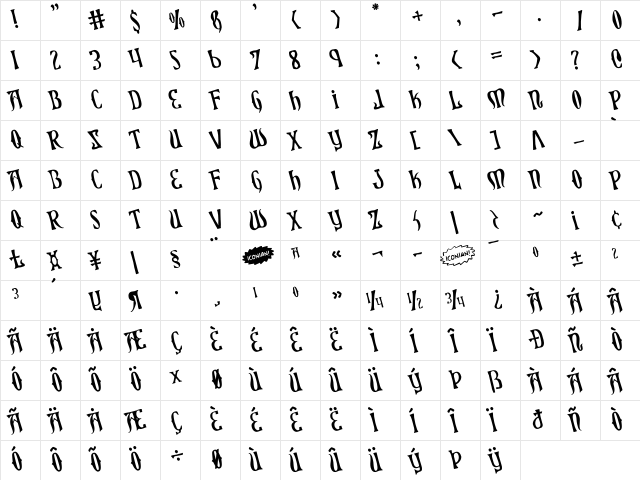
Xiphos Rotated Rotated
Design Context for Xiphos Rotated Typeface
Xiphos Rotated is a composed and adaptable typeface that performs quietly and consistently across a wide range of design contexts.
Pro Tip: Use Xiphos Rotated in both headline and body roles to test its range before committing to a single application.